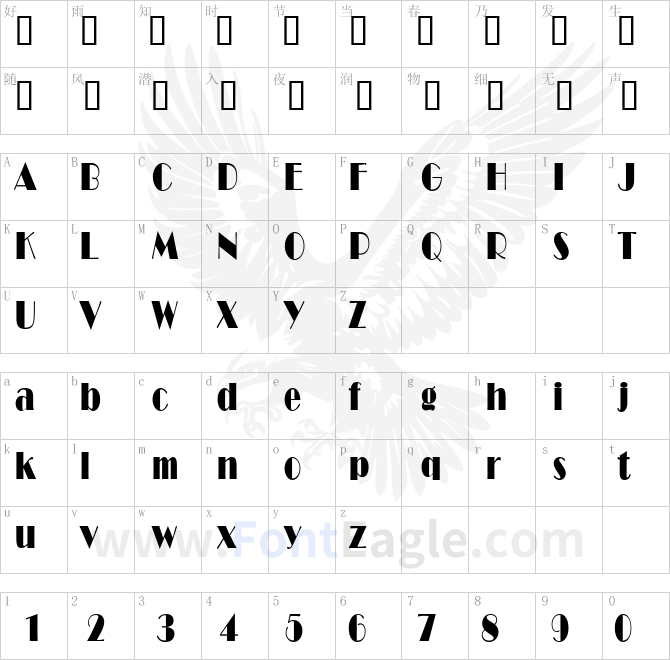
NewYorkDecoCondensed is a great font, widely used in graphic design, single-page menu design, poster design and other fields, and is deeply loved by designers.NewYorkDecoCondensed download.